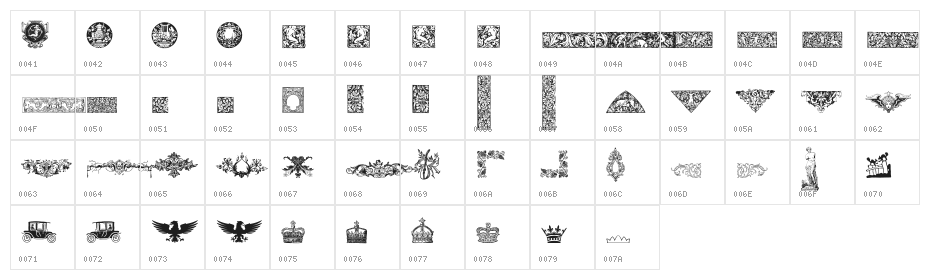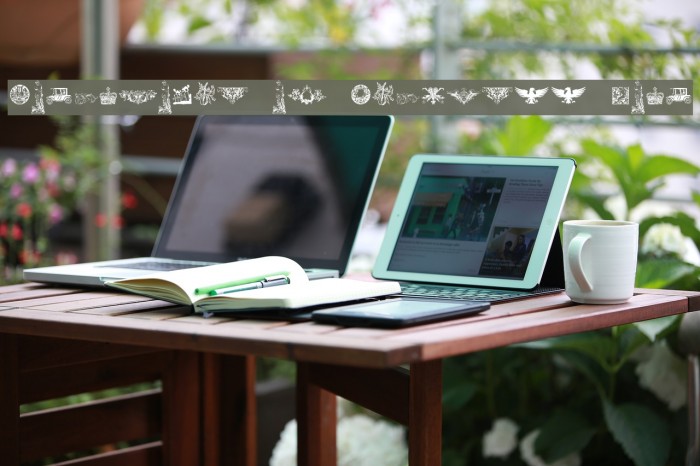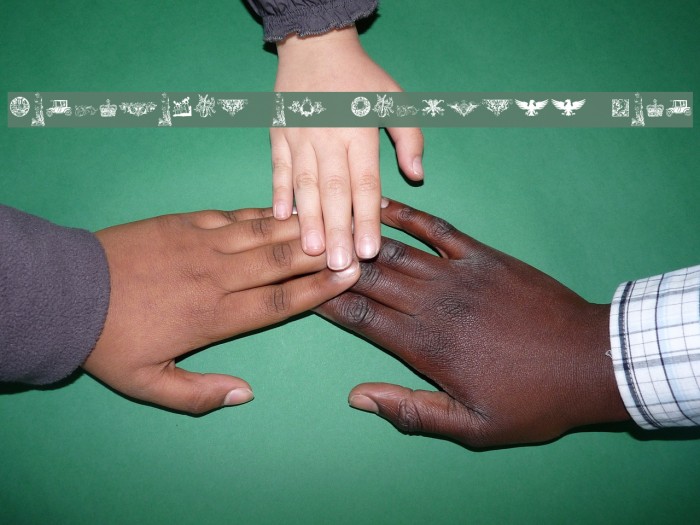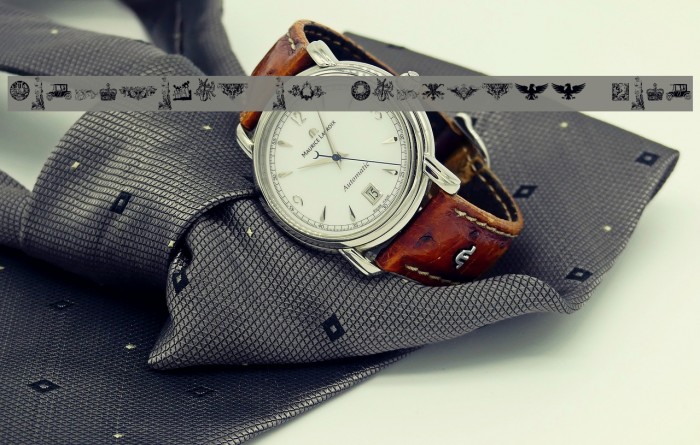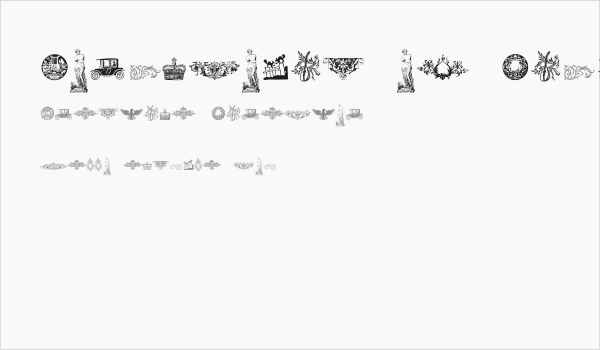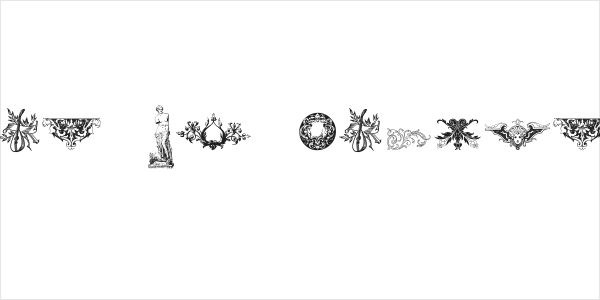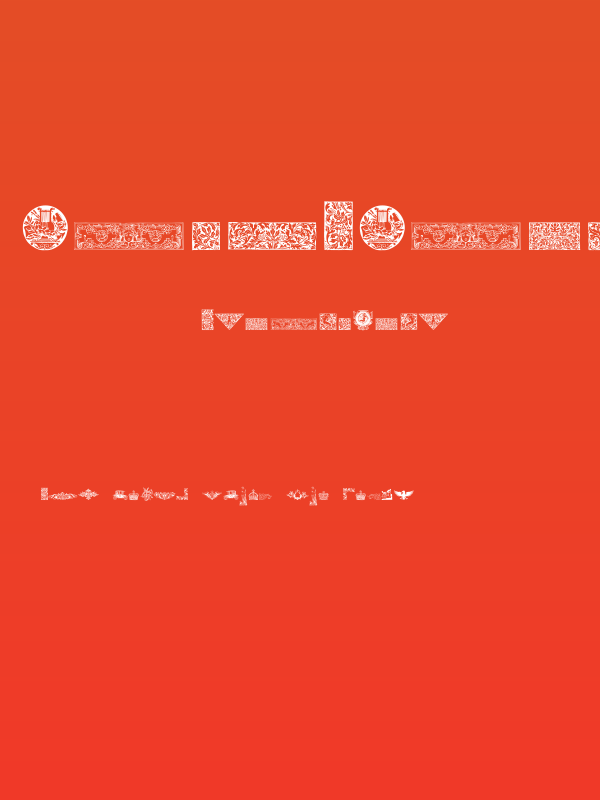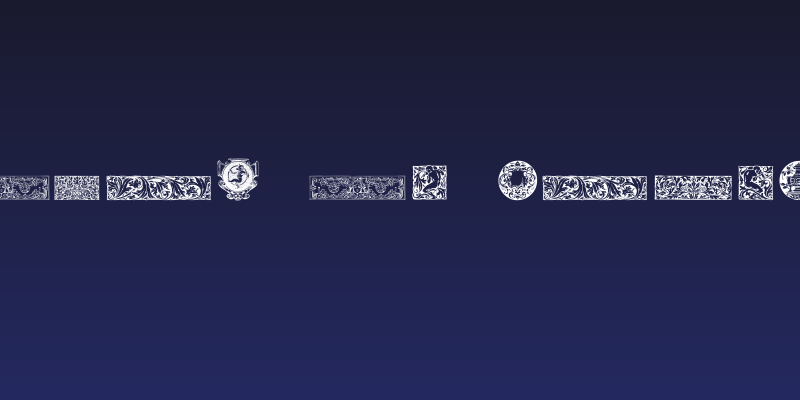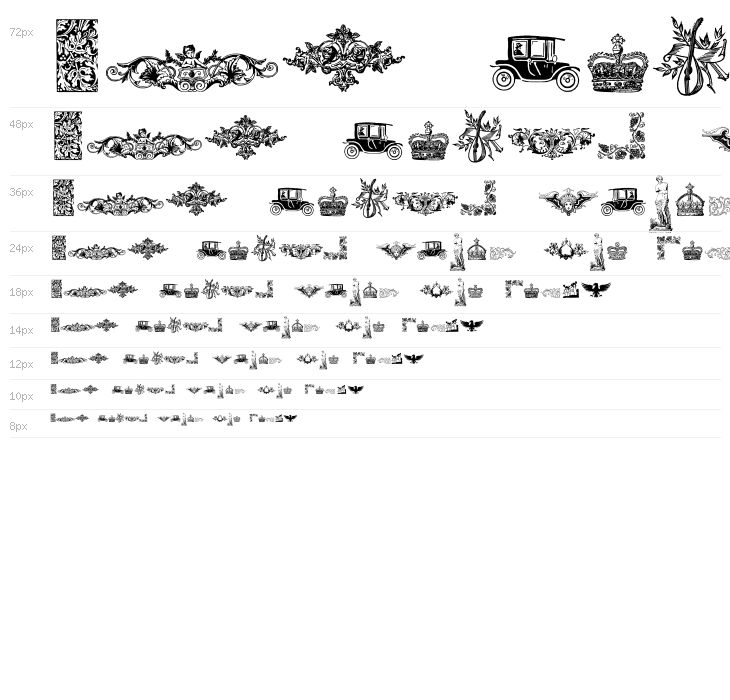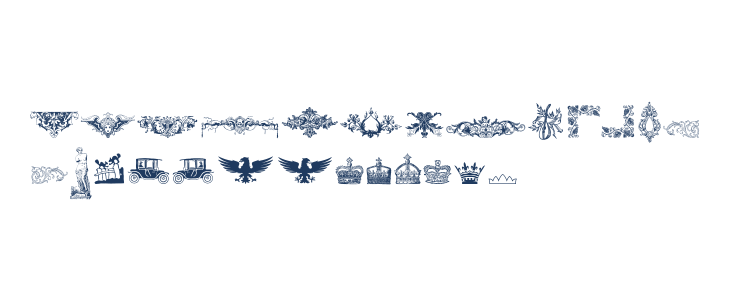
Cornucopia of Dingbats Four Font
Cornucopia of Dingbats Four Description
This collection features an eclectic mix of ornate and intricate dingbats, each with a unique design. The elements range from circular motifs with floral and architectural details to rectangular and triangular shapes filled with elaborate patterns. The designs include decorative borders, floral arrangements, and symbolic imagery such as crowns, carriages, and mythical creatures. Each piece is crafted with a high level of detail, making them suitable for decorative purposes. The style is reminiscent of vintage and classical art, with a touch of whimsy and elegance. These dingbats can be used to add a decorative flair to various projects, offering a rich visual texture and historical charm.
| Use Case | Decorative elements, Artistic embellishments |
| Proposed Projects | Ideal for invitations, decorative borders, vintage-themed designs, and artistic embellishments. |